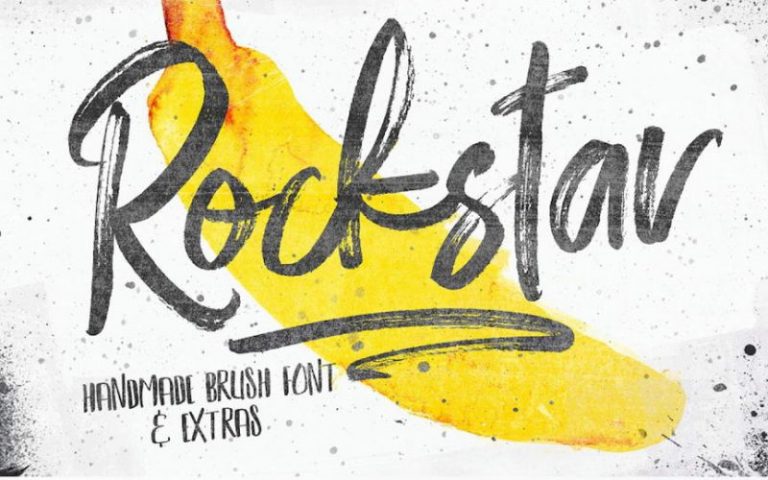
Rockstar Handmade Brush Font
Hello world..!! This is a handwritten font based on original handwritten expressions, allowing you to transform types into interesting and beautiful works. Introducing Rockstar Handmade Brush Font! An irregular and lettered look adds a real human touch to things and is accompanied by many loving details. The font stays in memory once you see it and it is ideal for display text, print and and also for user interfaces, mobile devices, web design and posters, with a set of optimal characters for your design in any layout.